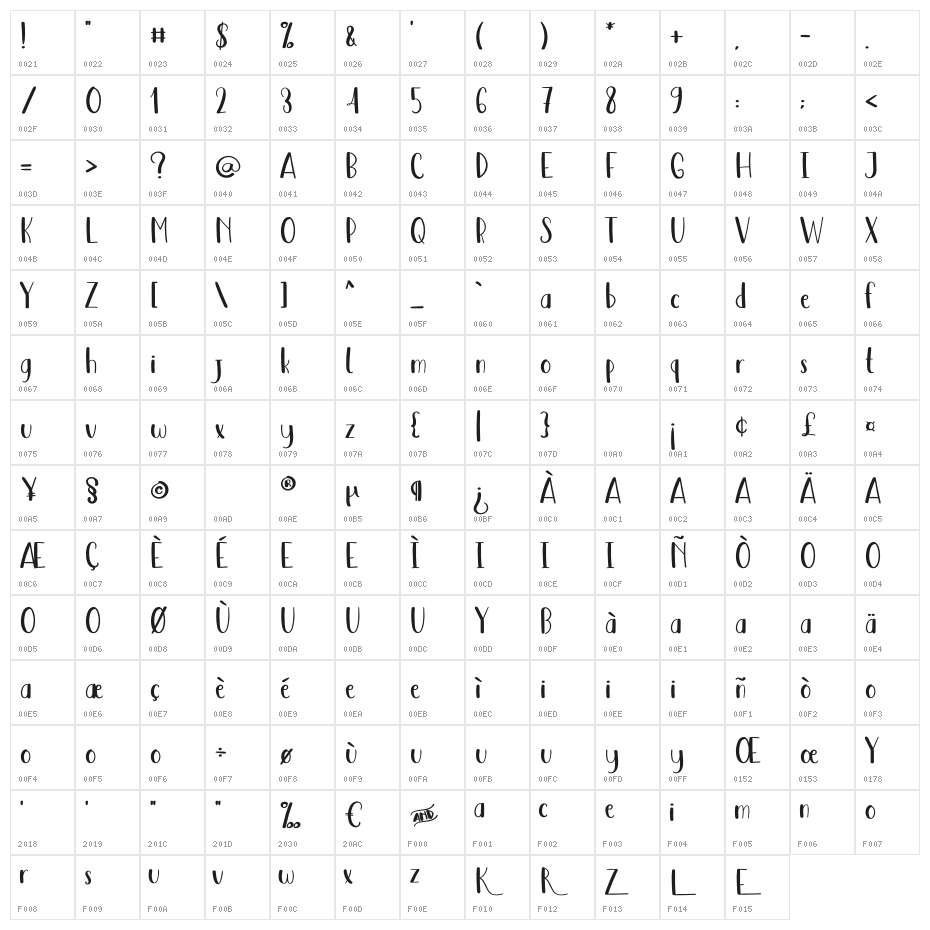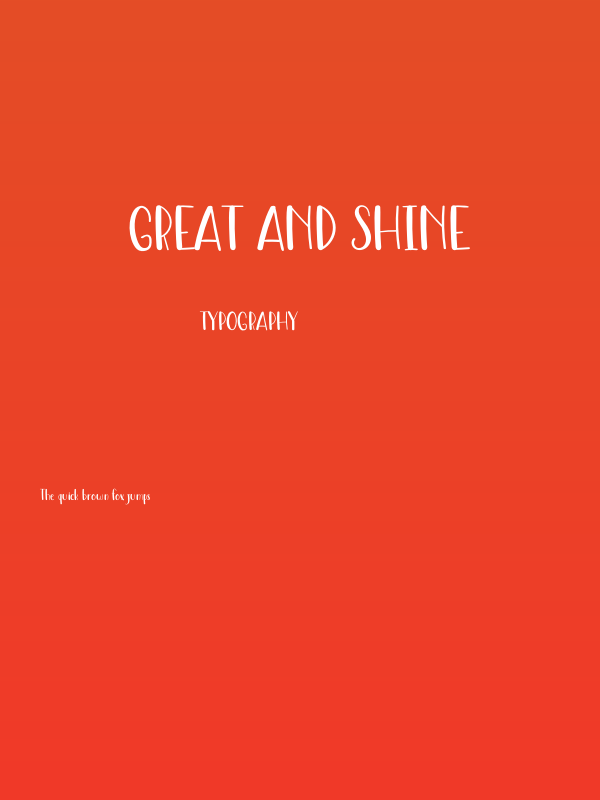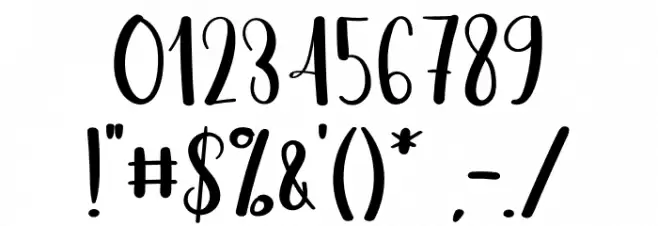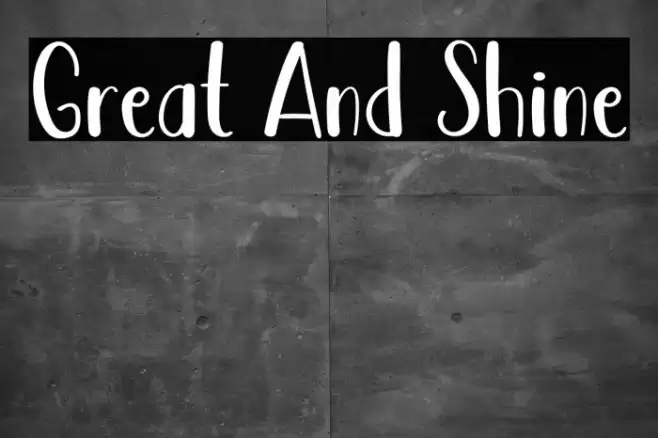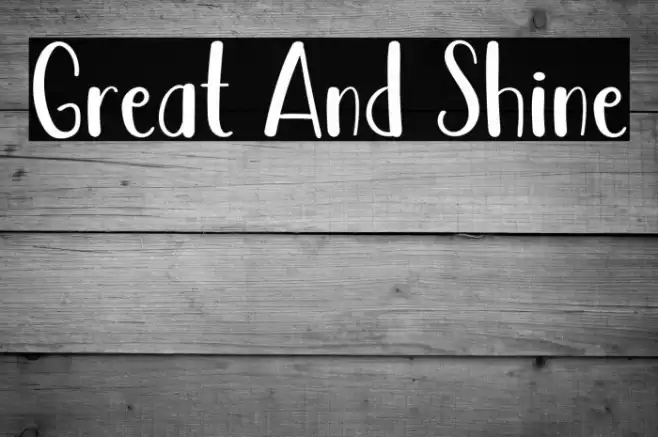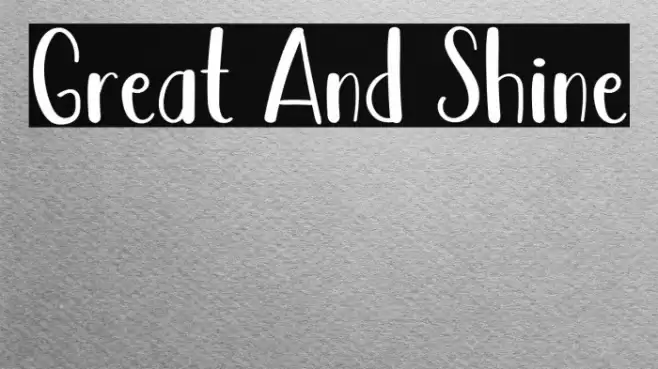
Great And Shine Font
This font features a playful and whimsical style with a handwritten appearance. The uppercase letters are bold and slightly irregular, giving them a lively and dynamic feel. The lowercase letters maintain a consistent flow, with some characters extending slightly below the baseline, adding to the casual aesthetic. Numbers are rounded and maintain the playful theme, while special characters are creatively styled to match the overall look. The font's unique charm makes it suitable for projects that require a personal touch or a fun, informal vibe.
| Use Case | Logos, Headlines, Informal text |
| Proposed Projects | Ideal for greeting cards, children's books, playful branding, and social media graphics. |